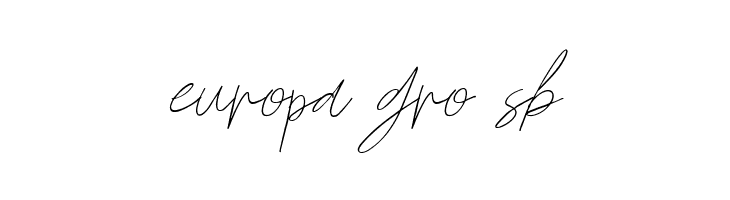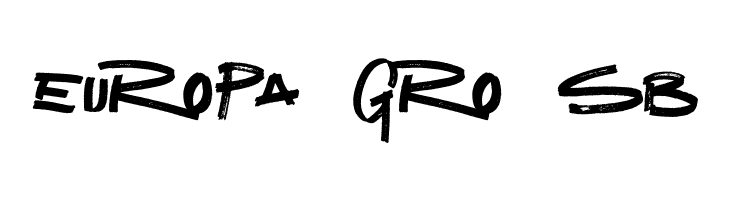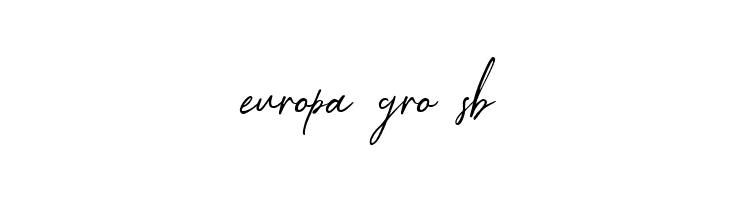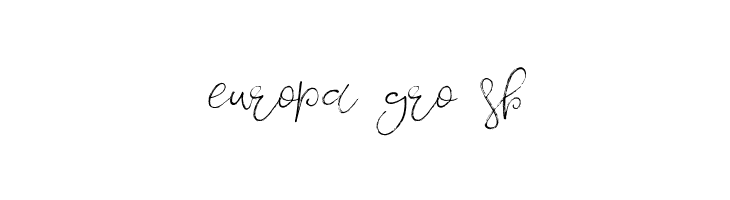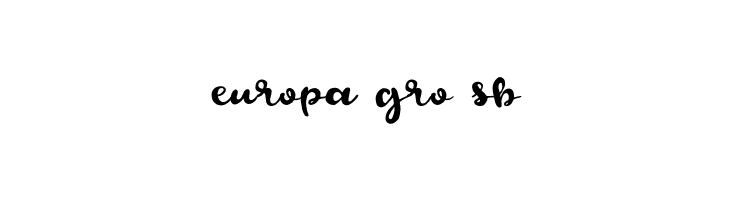
An elegant, flowing script font with a hand-drawn appearance.
A playful and elegant script font with smooth, flowing curves.
A bold, hand-drawn font with an expressive and dynamic style.
A sophisticated, elegant handwritten font with fluid, continuous strokes.
A bold, energetic font with dynamic brush strokes and irregular letterforms.
A dynamic, handwritten font with fluid, elongated strokes.
A bold, expressive handwritten font with a playful and dynamic style.